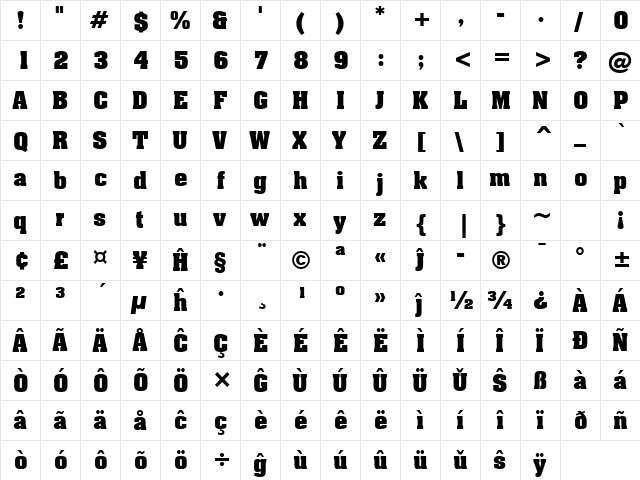
Aachen Eo Bold
Design Context for Aachen Eo Typeface
Aachen Eo takes a measured approach to typography — its balanced proportions and neutral character make it a reliable workhorse for both digital and print work. Its bold stroke weight gives it real presence on the page.
Pro Tip: Use Aachen Eo in both headline and body roles to test its range before committing to a single application.